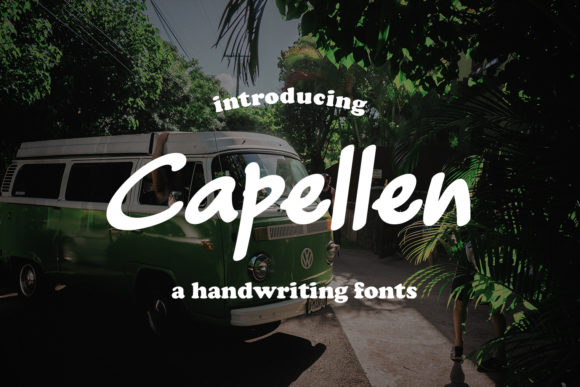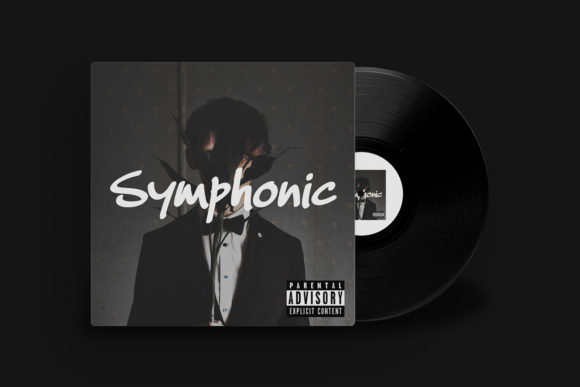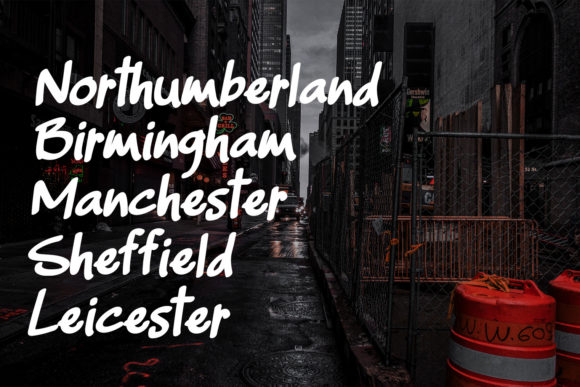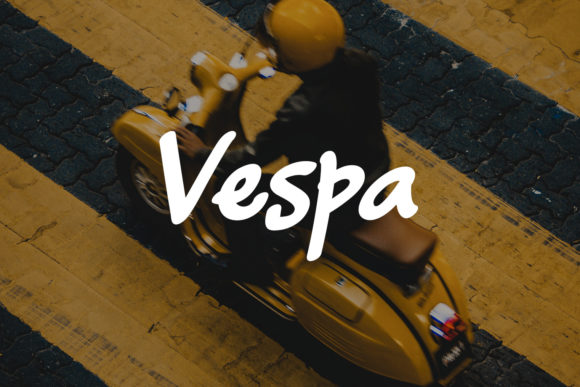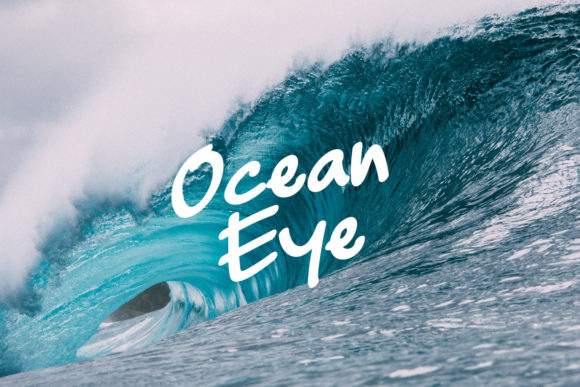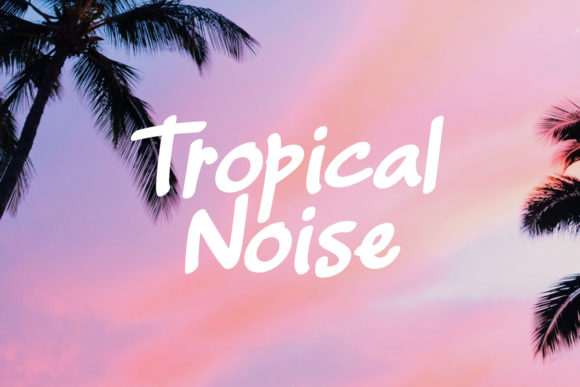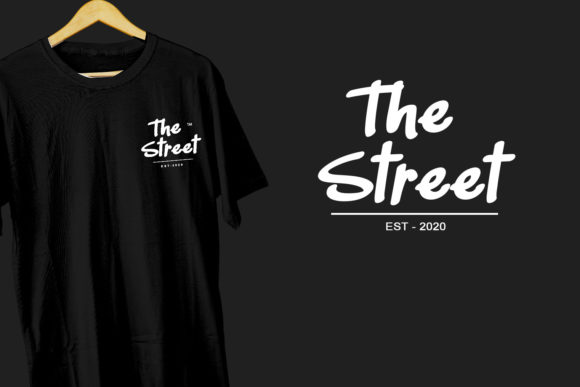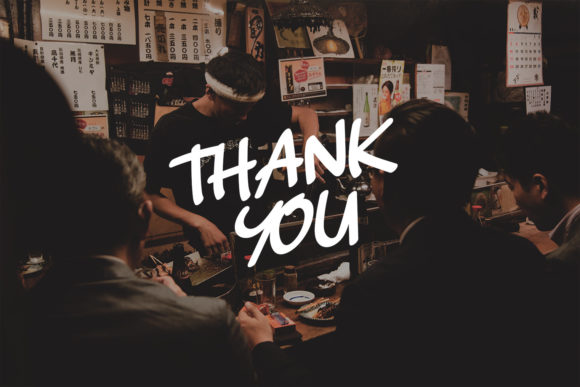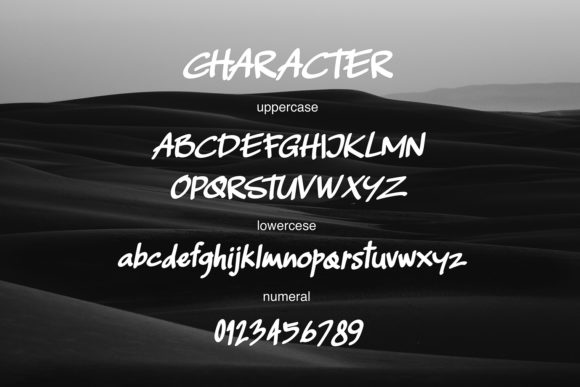
Capellen is a simple and casual handwritten font. Due to its relaxed style, it can be added to a variety of design ideas, such as logos, magazine covers or quotes.